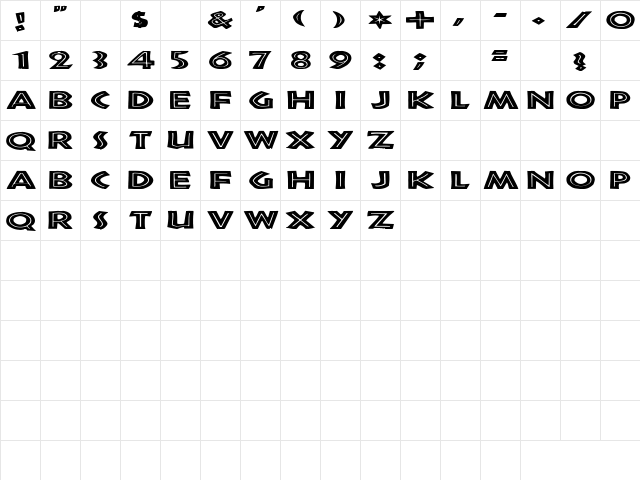
Love Hurts 2 Regular
Design Context for Love Hurts 2 Typeface
Love Hurts 2 is a composed and adaptable typeface that performs quietly and consistently across a wide range of design contexts.